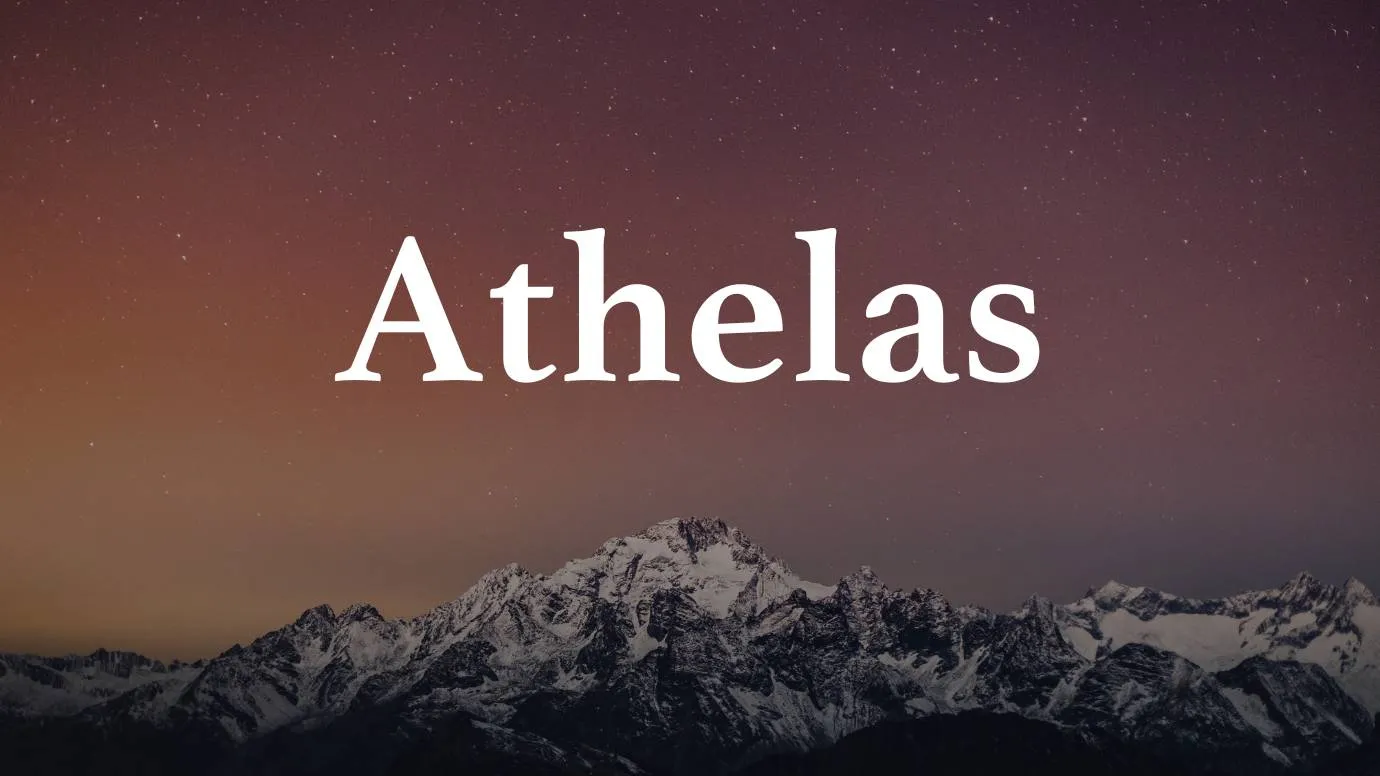
Athelas is a part of the Serif font family. The creation of this font was a collaborative effort between two renowned designers, Veronika Burian and Jose Scaglione. Athelas Font is an outstanding example of typographic design that can add an elegant flair to websites, especially when paired with Museo Sans font.
Athelas Font Family
NameAthelas Font
DesignerVeronika Burian, Jose Scaglione
StyleSerif